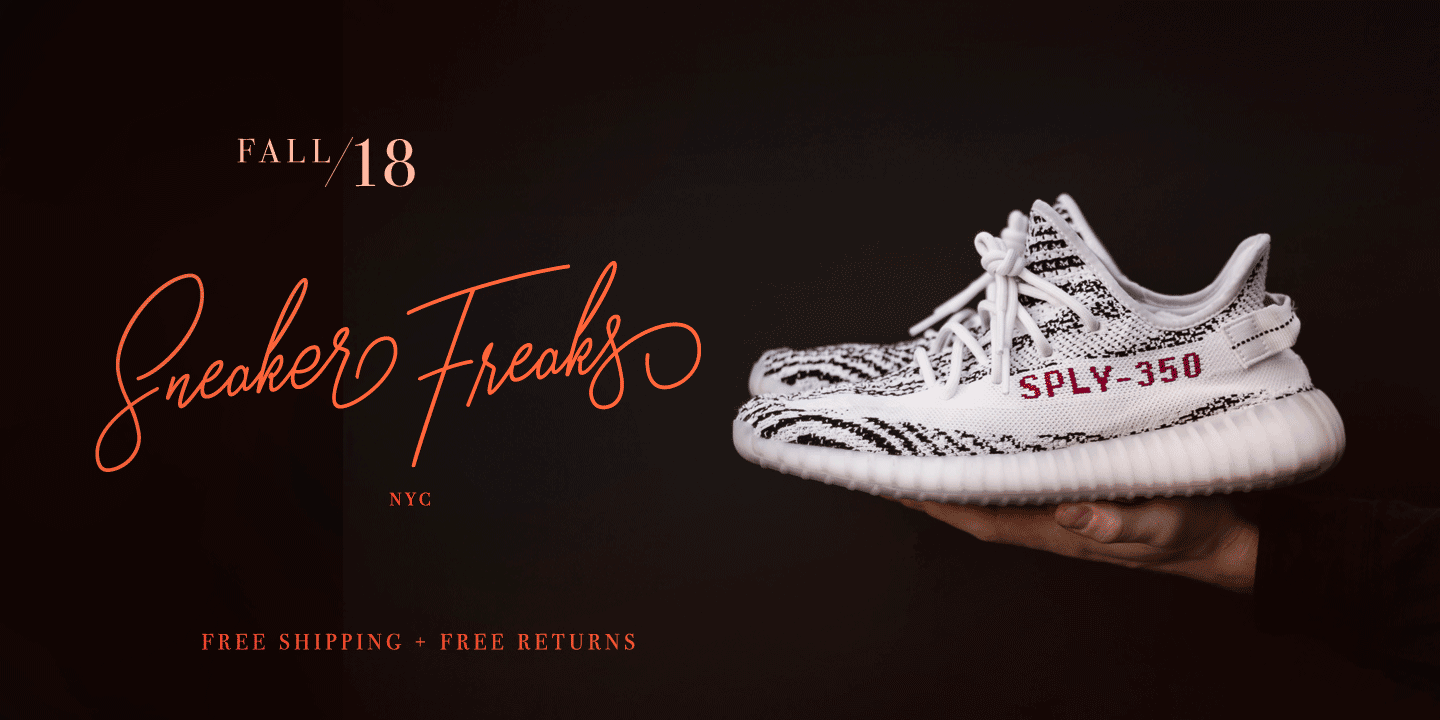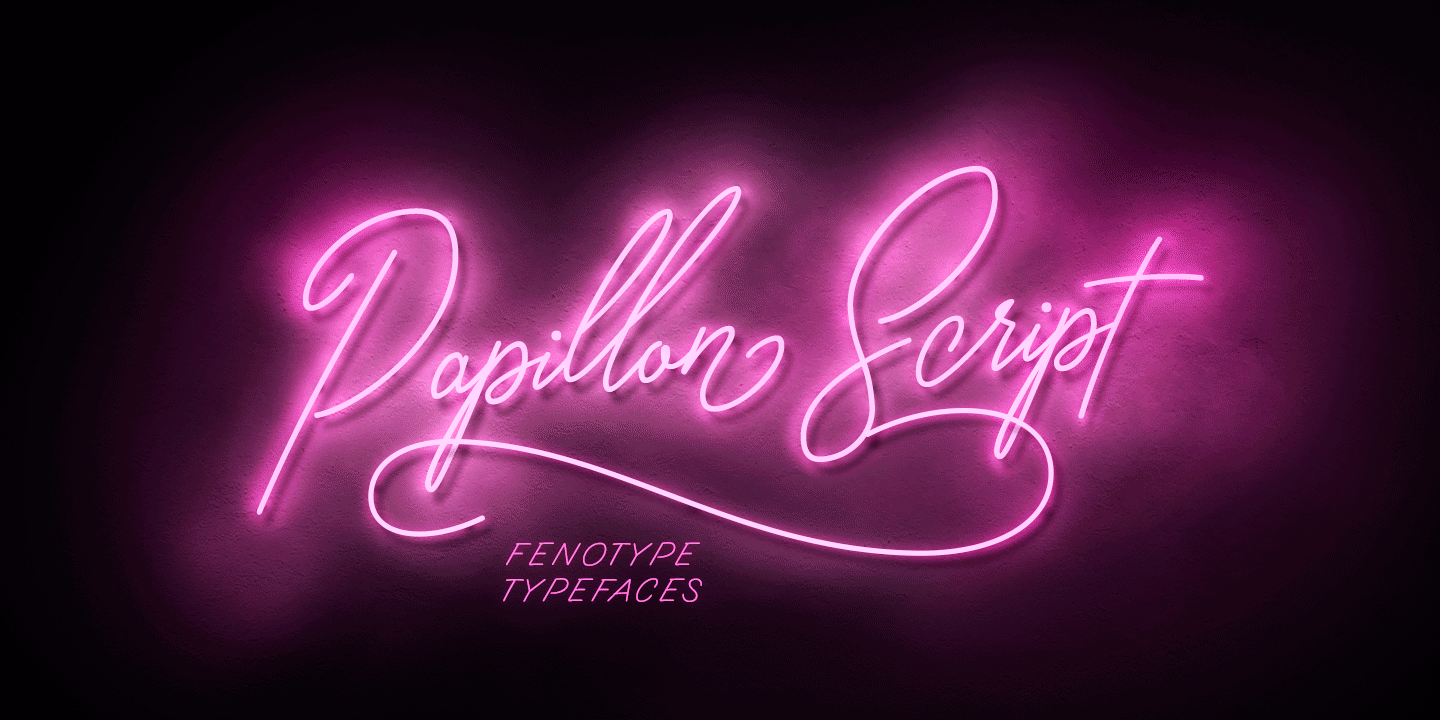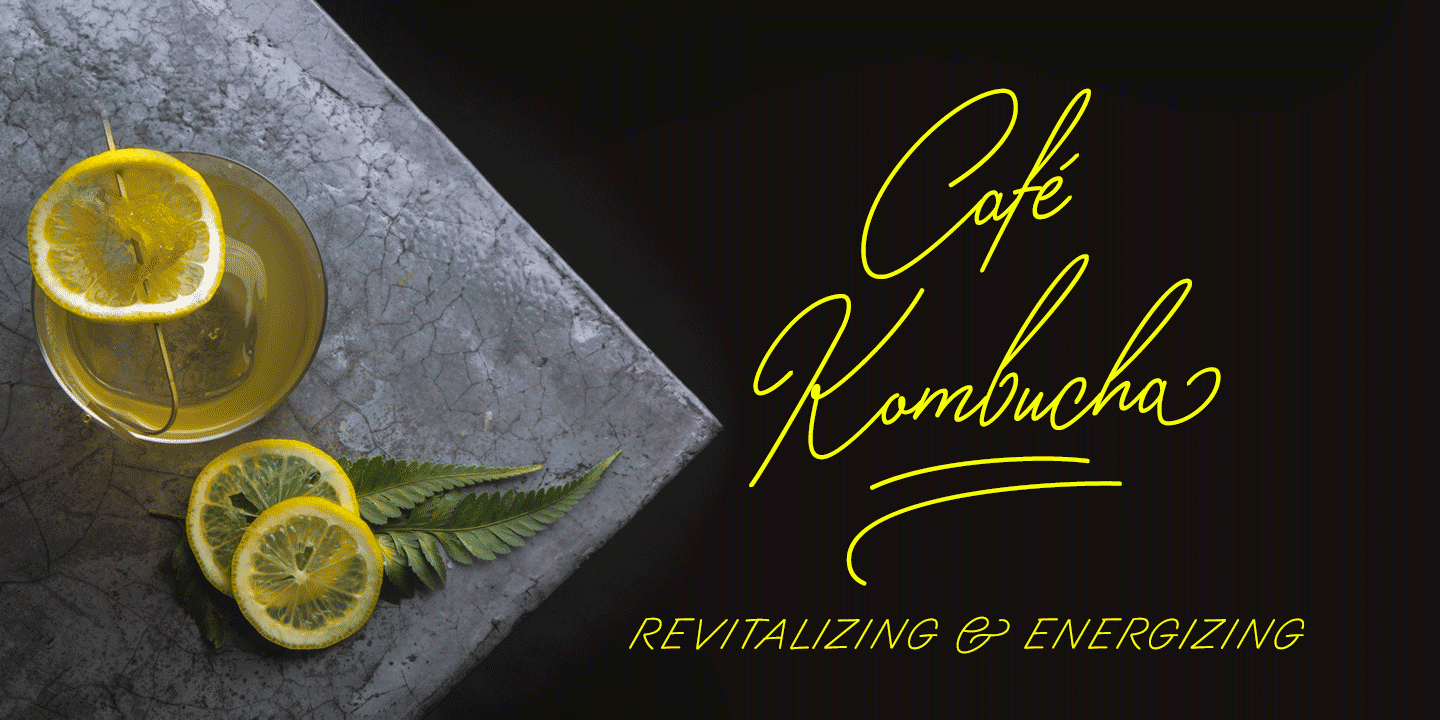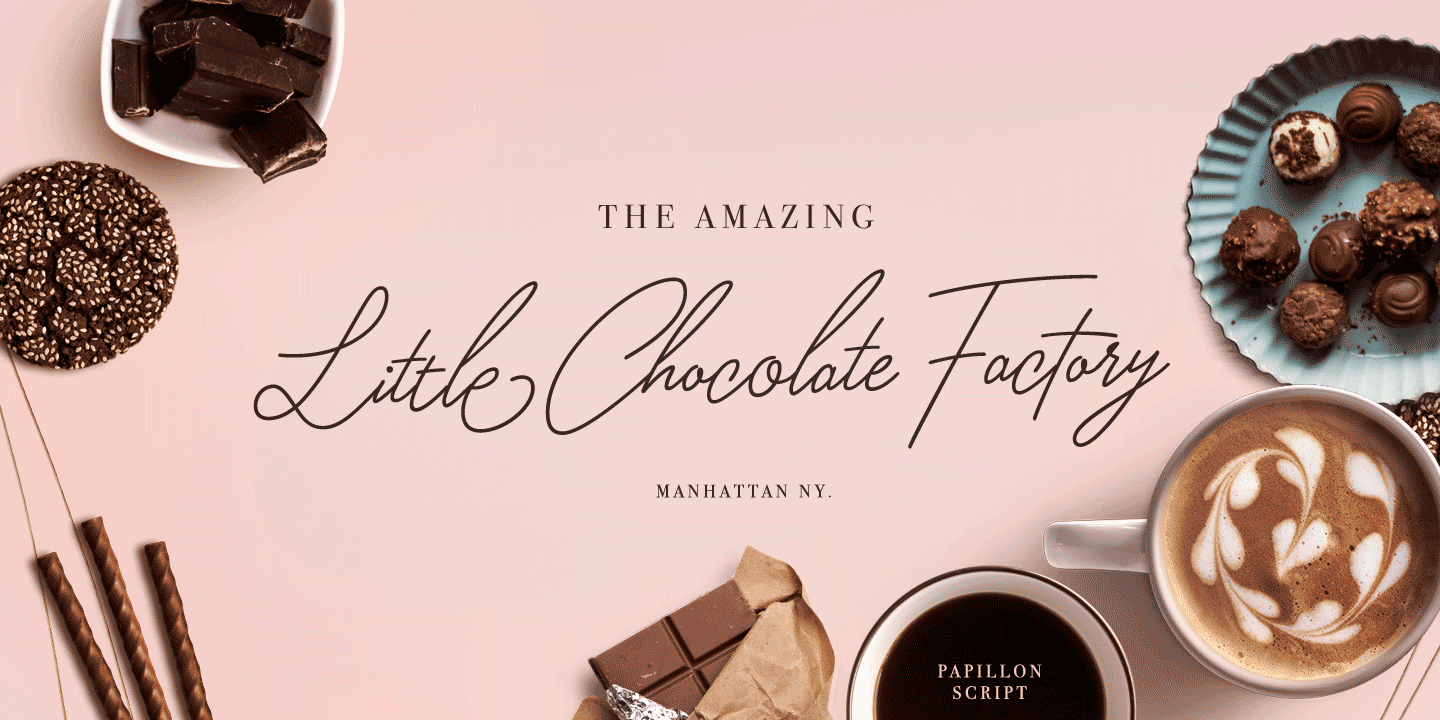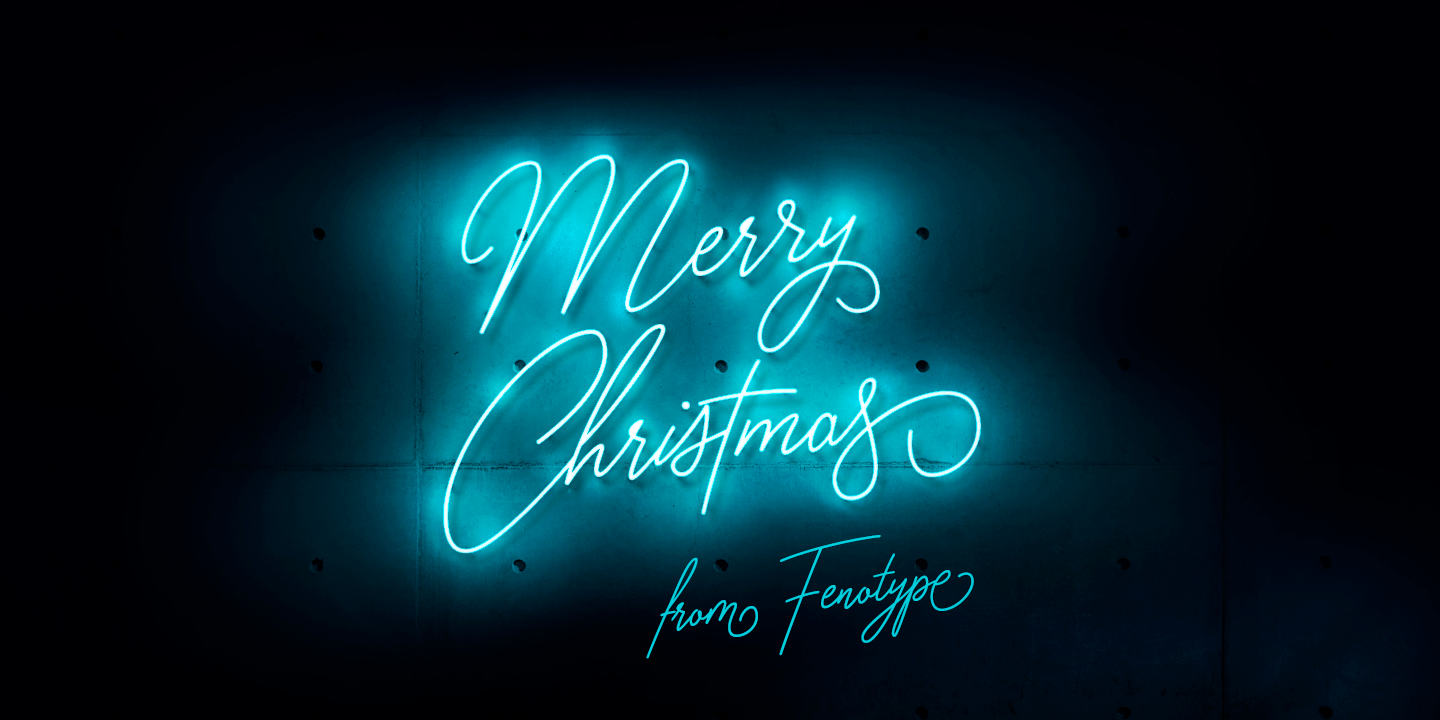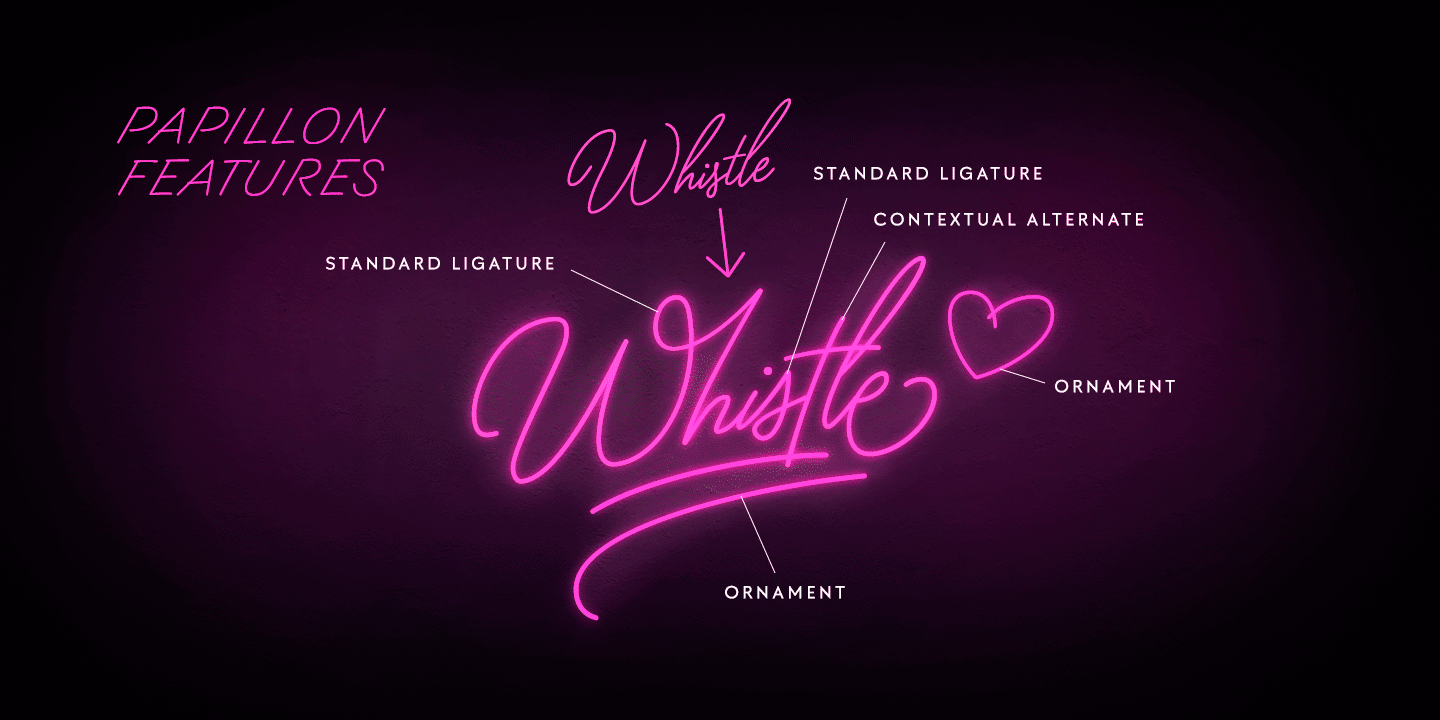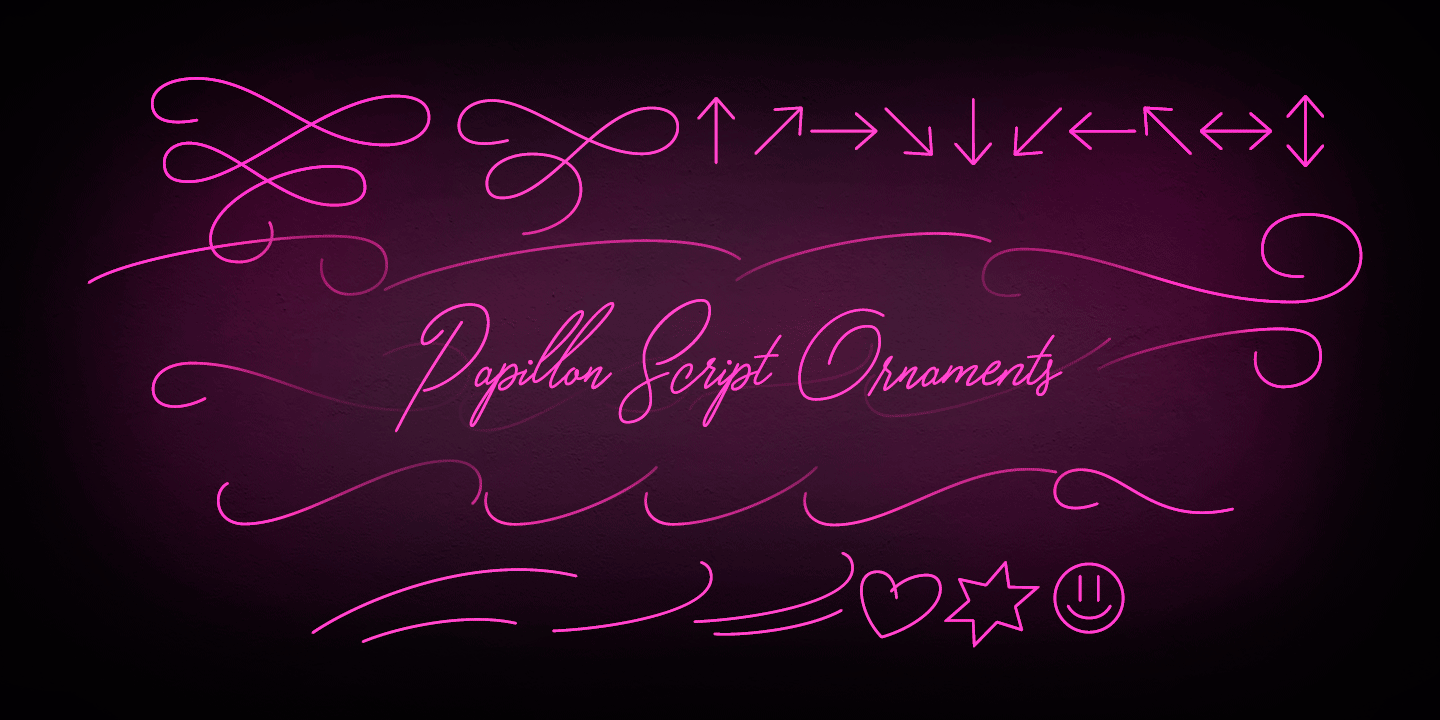
Papillon Script
Font Family by Fenotype
Papillon Script is an eloquent pen script with large display capitals and small but legible lowercase letters. It's ideal for logo, headline, brochure, model for a neon sign or any display use like that. Papillon Script is completely monolinear and it gives a clear but vivid impression of a hand writing style.
Papillon Script is equipped with following OpenType features:
? Standard Ligatures is automatically on and it adds variation and smoothness to typing. If a same letter repeats in the same word the latter will automatically change to an alternative version.
? Contextual Alternates is an optional feature that cuts the connection between letters every once in awhile.
? Titling Alternates changes the last character in every word into an ending Swash alternative.
? From Stylistic Set 1 you'll find a set of 34 ornaments, strokes and arrows.
? Small Caps turns lowercase into a set of legible capital letters.